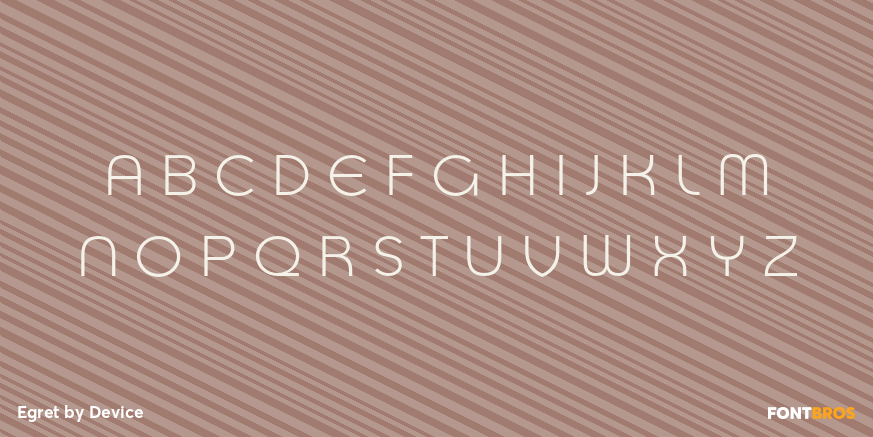
Egret
Font Family by Device
Egret is a two-style display family from Device with a light, decorative look that leans into groovy, new wave, and special-effect styling. Its slender forms and flourish option give it a distinctly retro feel, making it a strong choice when you want typography with movement, attitude, and a bit of vintage drama.
The family includes Egret Light and Egret Light Flourish, giving you a cleaner version and a more embellished companion for bolder display settings. Use it for posters, album-inspired graphics, branding, packaging, apparel, or other headline work where a 1960s, 1970s, or 1980s-inflected voice can help set the tone quickly.